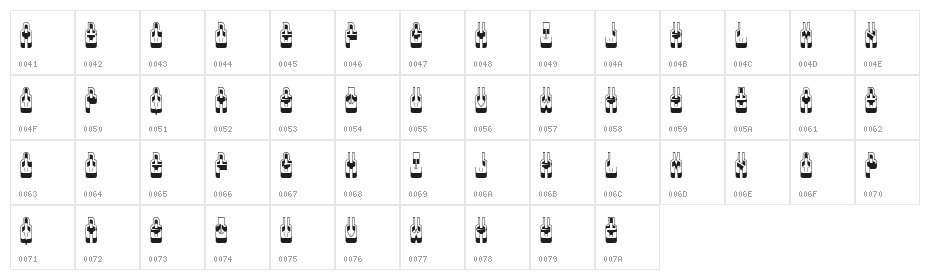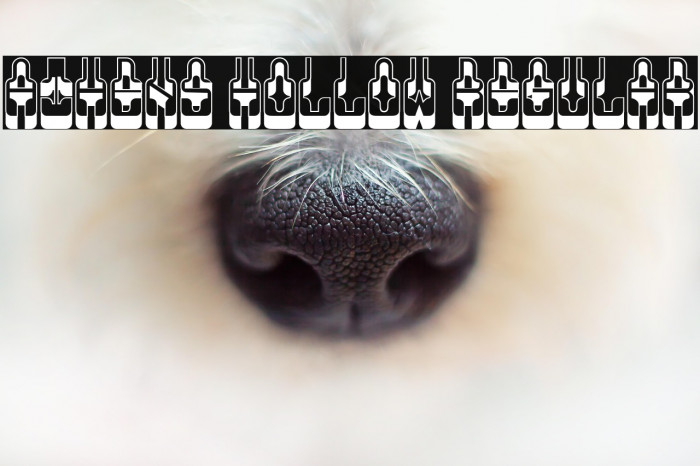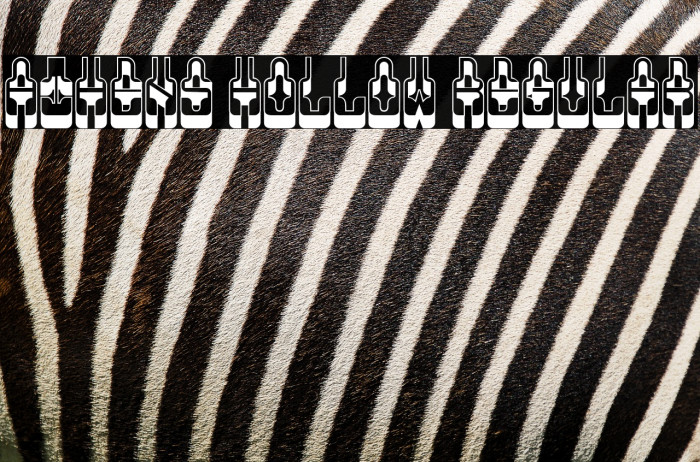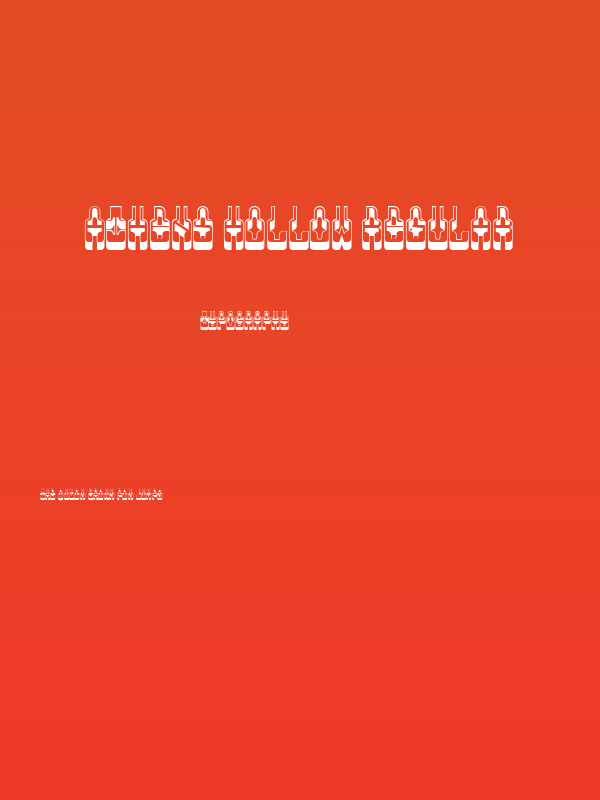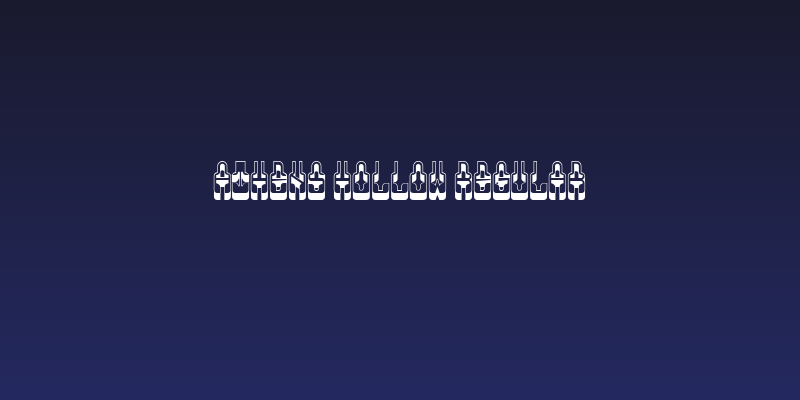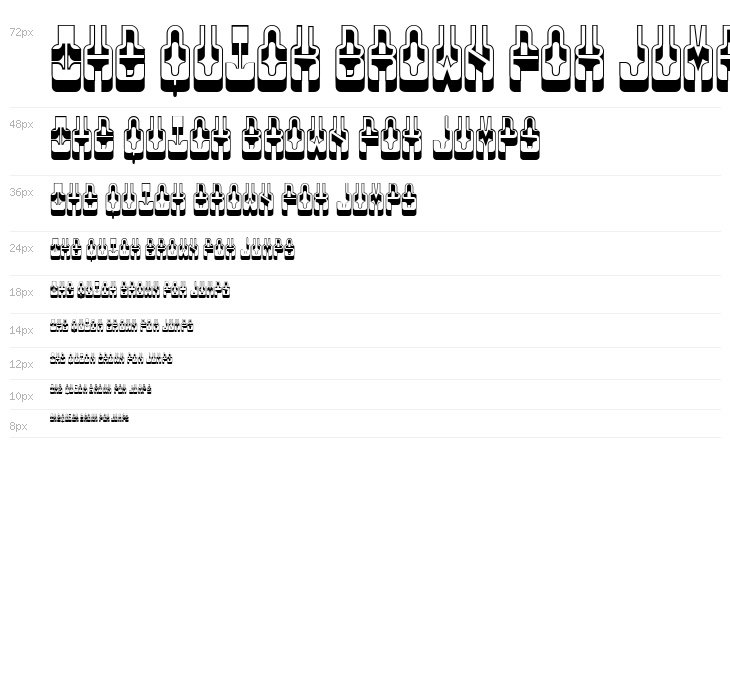
Athens Hollow Regular Font
Athens Hollow Regular Description
This font features a unique hollow design with a bold, three-dimensional appearance. Each character is outlined with a thick black border, creating a striking contrast against the white interior. The geometric shapes and sharp angles give it a futuristic and modern feel. The uppercase and lowercase letters maintain a consistent style, while numbers and special characters are crafted with the same attention to detail. The font's distinct look makes it ideal for eye-catching designs and creative projects.
| Proposed Projects | Ideal for logos, posters, album covers, and any project requiring a bold, modern aesthetic. |